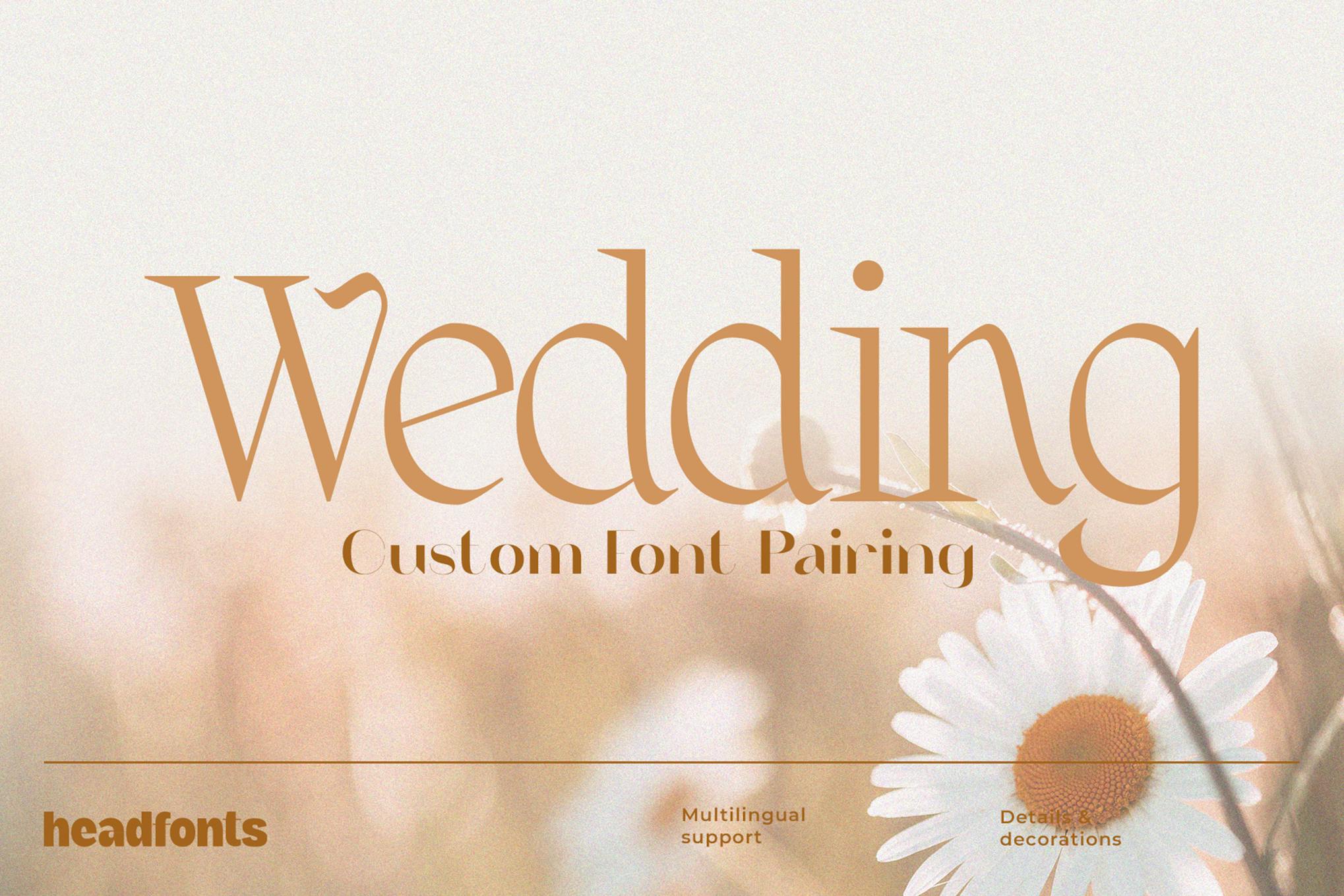
Dreamy Wedding Font Duo
The Dreamy Wedding Font Duo excels in coordinated design applications including paired wedding invitations, complementary bridal branding, harmonized ceremony logos, coordinated product packaging, matched business cards, paired portfolios, complementary greeting cards, harmonized social media graphics, coordinated event signage, and paired marketing materials. Its duo style makes it perfect for projects requiring typographic harmony that communicates design unity and establishes coordinated brand positioning with audiences seeking dreamy wedding experiences and harmonized sophistication.
What makes the Dreamy Wedding Font Duo genuinely exciting is its exceptional ability to create perfect typographic partnerships and dreamy visual coordination through beautifully matched letterform combinations. The font features complementary styles with harmonized proportions and dreamy flourishes that create distinctly unified appearances while maintaining individual personality. Each character displays masterful attention to pairing compatibility with dreamy curves, harmonious connections, and coordinated spacing that give text a beautifully matched, hand-lettered quality. The font's paired character and dreamy rhythm create an atmosphere of design unity while maintaining elegant sophistication and wedding authenticity.
The Dreamy Wedding Font Duo family typically includes two complementary weights with extensive character coverage, featuring uppercase and lowercase letters, numerals, punctuation, and international glyphs for both coordinated styles. The typeface often incorporates stylistic alternates, contextual ligatures, and dreamy swashes that enhance its signature harmony. These additional elements provide designers with creative flexibility to customize text appearance and achieve more natural-looking paired typography that reflects the font's harmonious and dreamy character.
This harmonious signature font distinguishes itself through its remarkable ability to solve complex wedding typography challenges through perfect pairing solutions. Unlike mismatched fonts that create visual discord, Dreamy Wedding Font Duo offers designers the ideal combination of contrast and harmony for creating dreamy wedding typography hierarchies. The font's paired character makes it essential for wedding professionals, design-conscious brands, and typography-focused businesses where maintaining visual consistency across different text elements is fundamental to professional presentation and dreamy wedding design success.